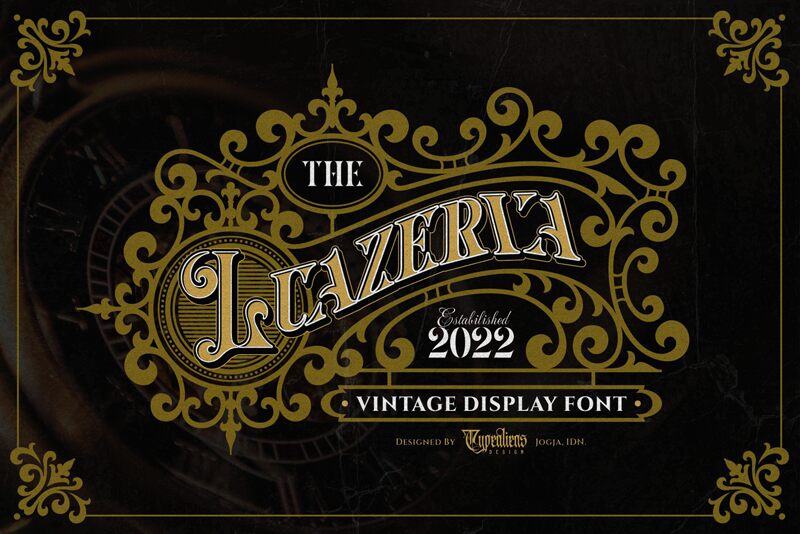
Luazerva font by Ilhamtaro is a retro display font with condensed width. A proud member of the ornate and decorative fonts, this typeface delivers a whimsical and theatrical vibe thanks to its curvy characters and fun style. Its intricate details are presented in both lowercase and uppercase forms, showcasing its artistic flair whenever an opportunity arises.
Use this free display font for headlines or titles in flyers, invitations, branding designs, wrapping paper etc. Or use it on smaller scale format covers or page decorations such as notebooks, catalogs etc. You could also go digital with them by adding them to social media posts or light blogs!